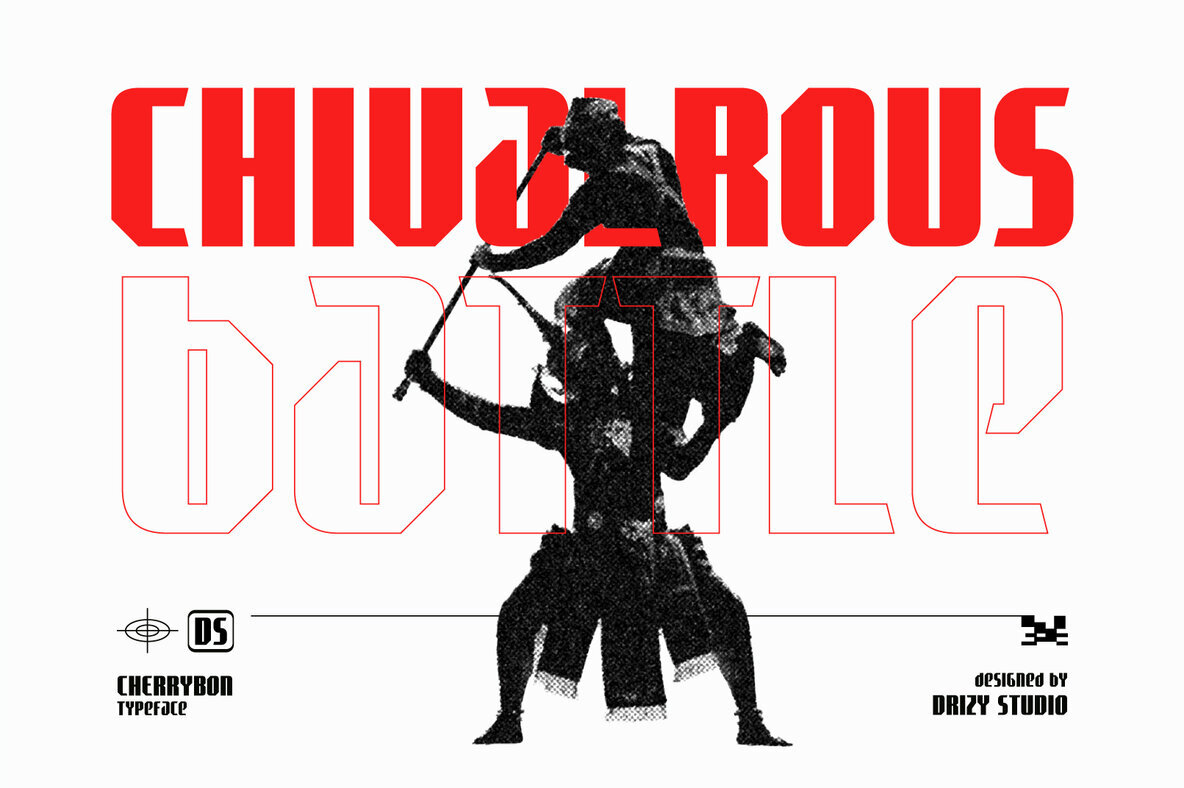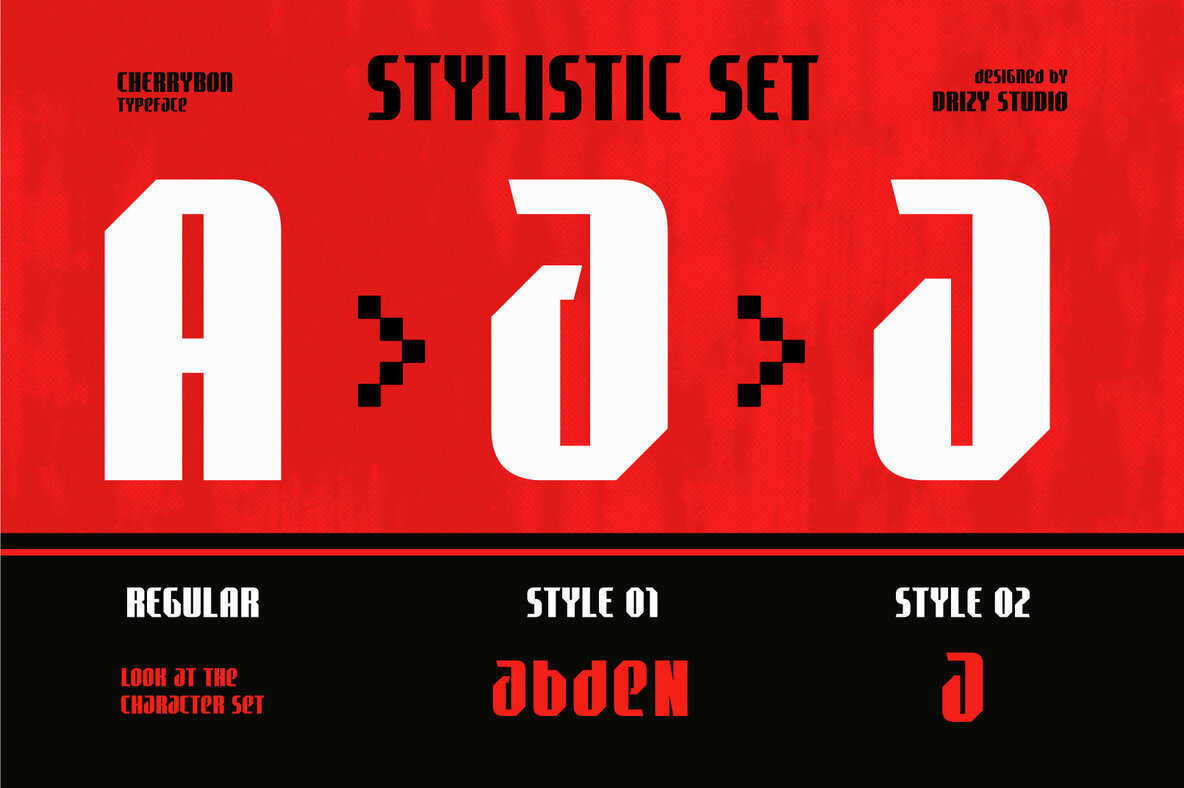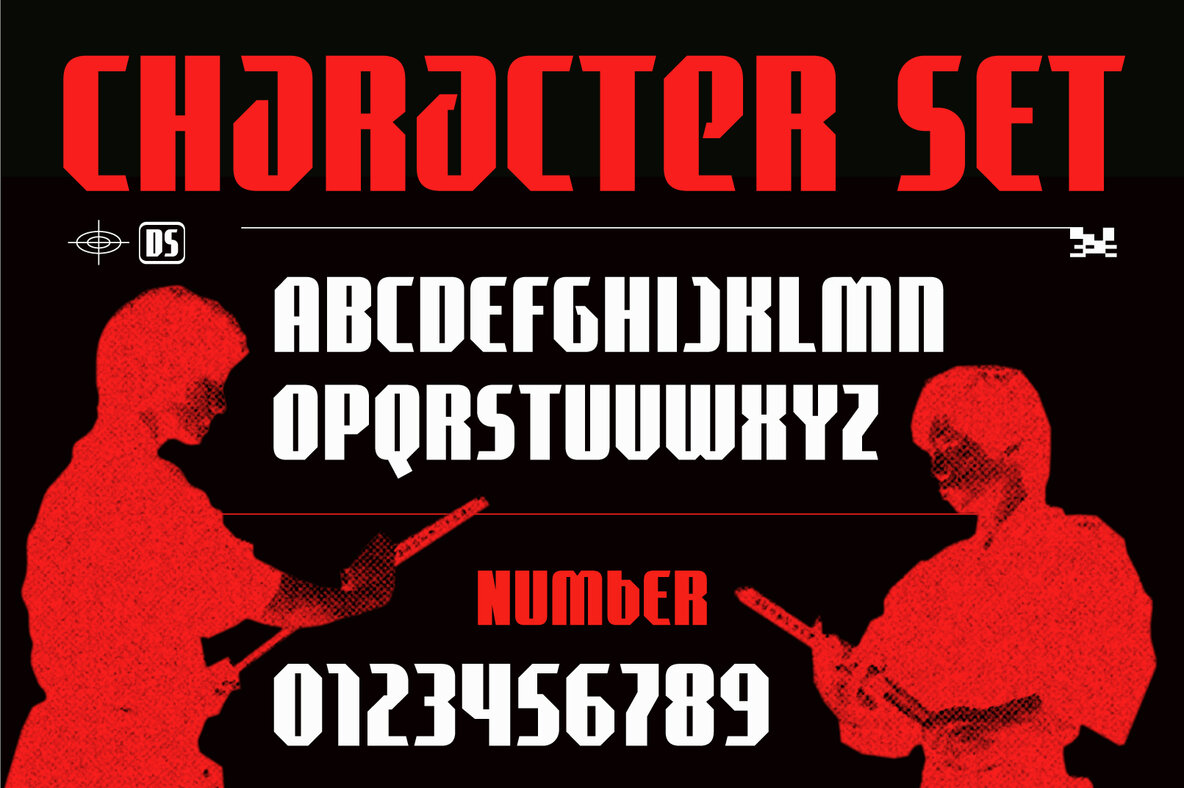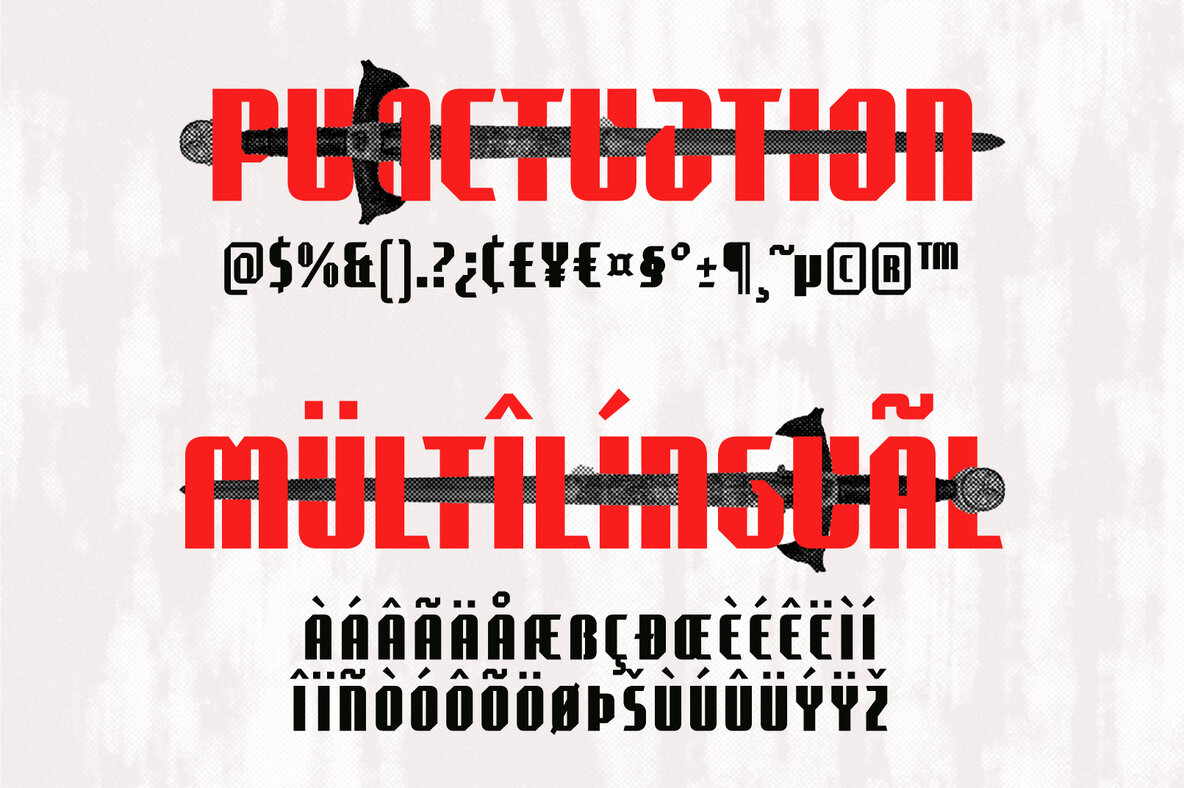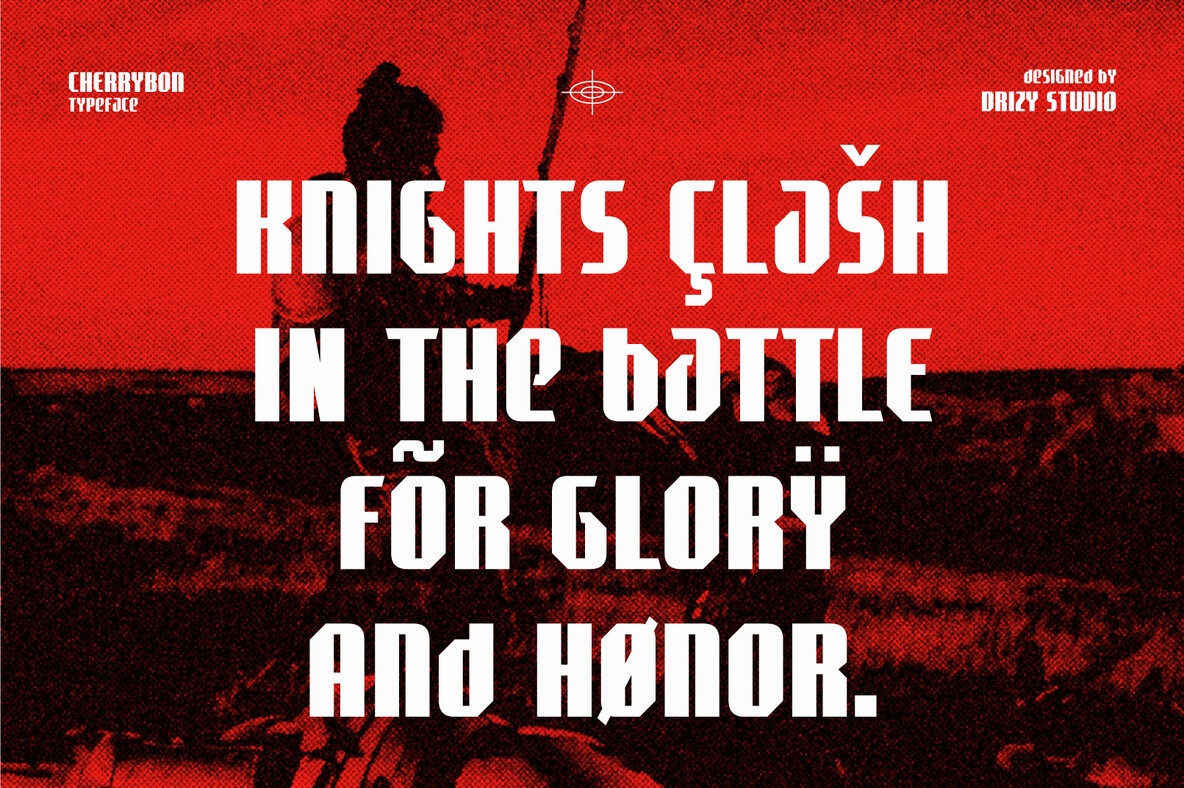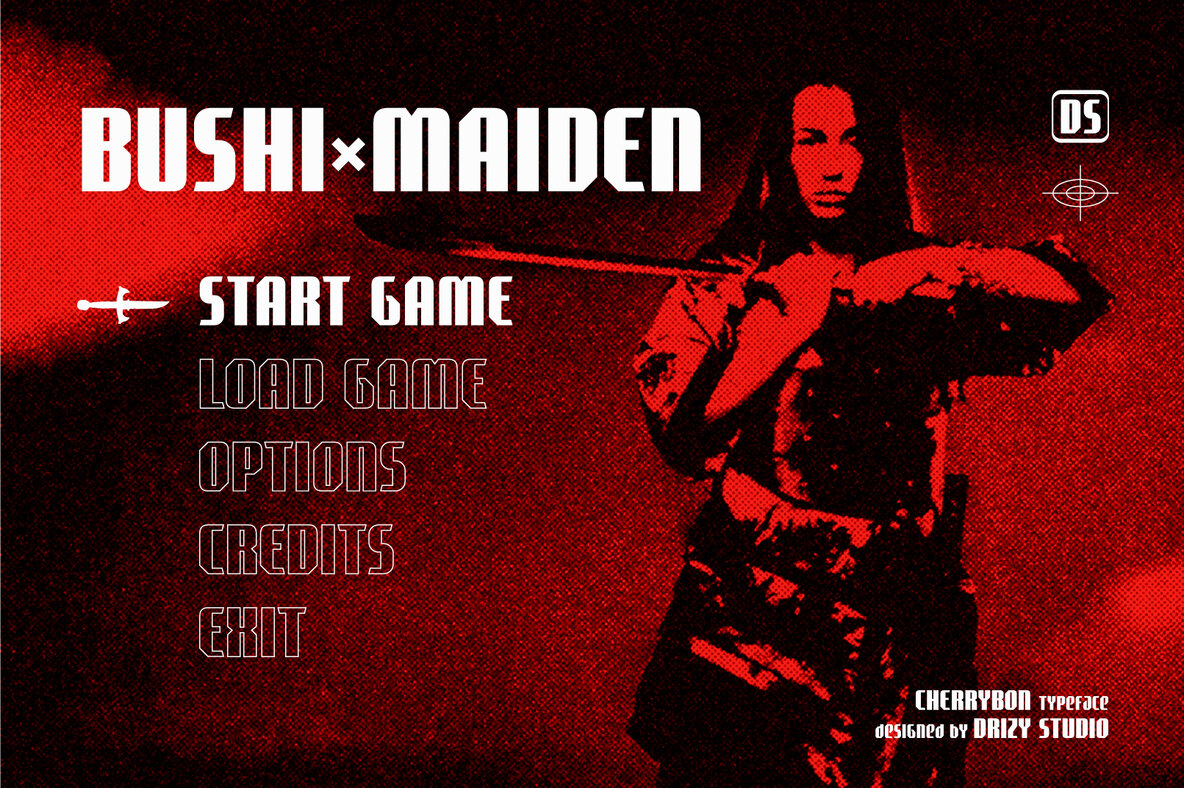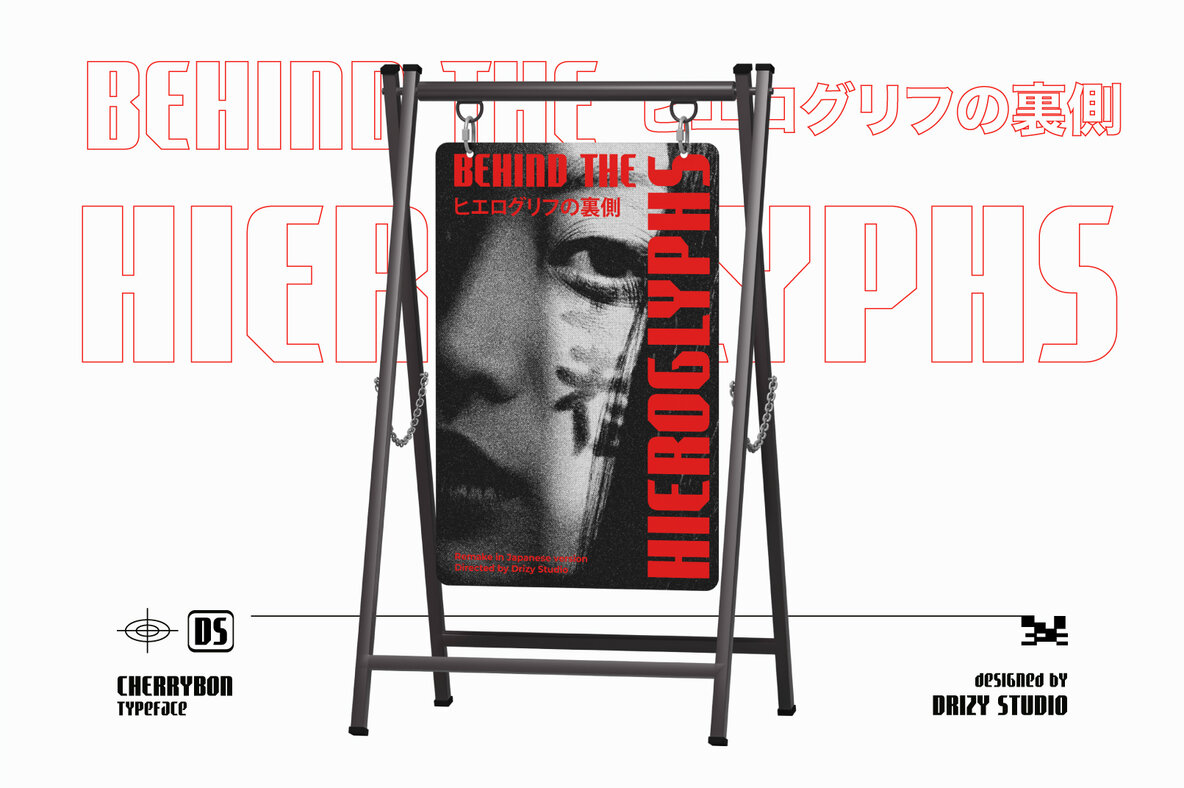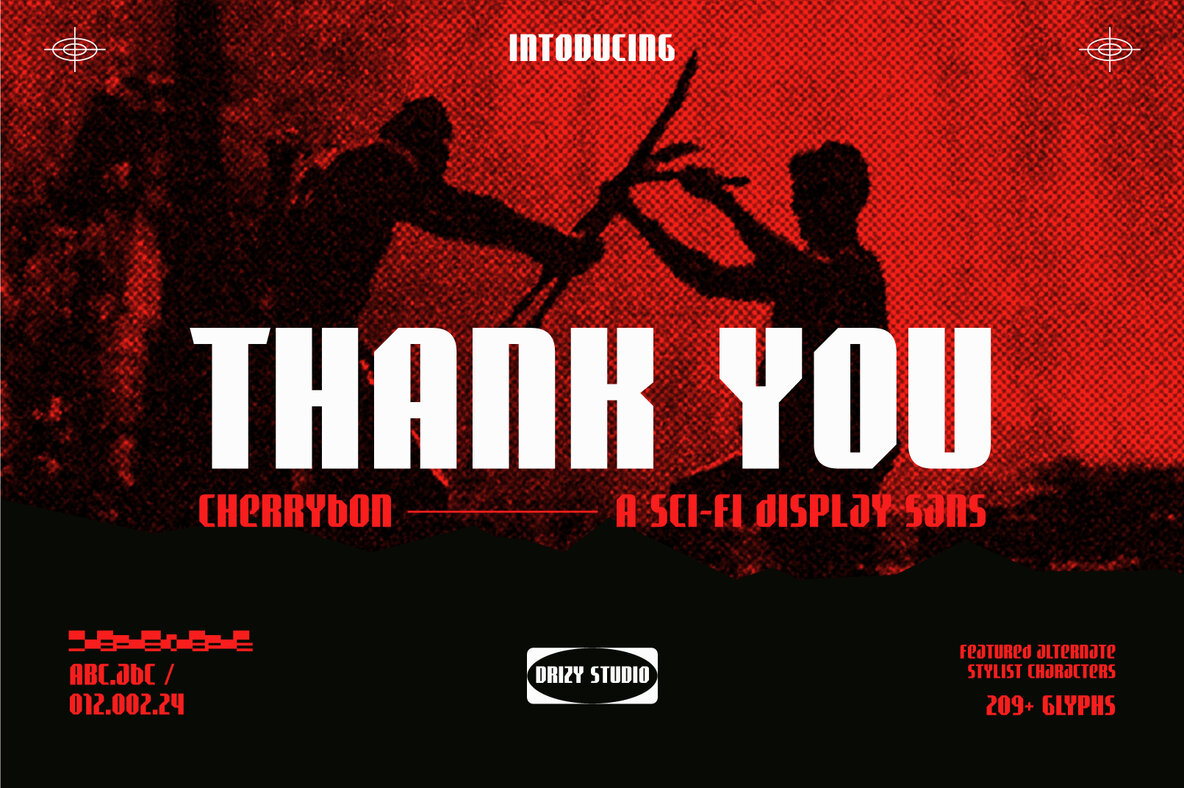
Cherrybon Font
Cherrybon Regular
Cherrybon – Sci-fi Display Font Unleash the power of the monstrous with Cherrybon, a captivating sci-fi bold font inspired by the awe-inspiring realms of monsters and kaiju. This unique typeface merges the mystique of otherworldly creatures with futuristic design elements, creating a visually striking and attention-grabbing font that’s perfect for projects that demand a bold and adventurous touch. Cherrybon features: